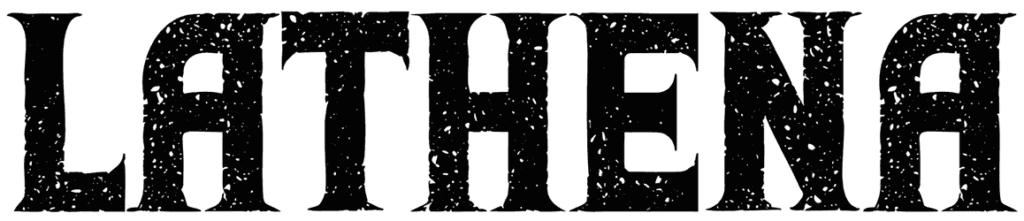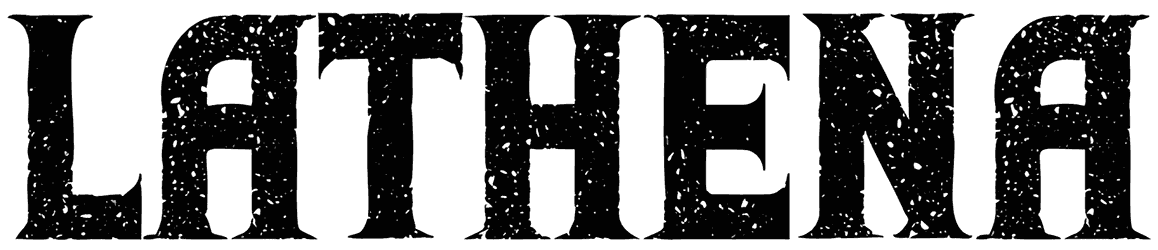
Lathena Font
Now thanks to Resource Boy, the aesthetic retro exhibitions come back with the 80s aesthetic of Lathena, catching its retro wave and speckled design by utilizing this all-caps serif font.
Let your viewers truly relive that vibrant and vintage look, to get an apex in devising nostalgic banners, posters, album covers, and social media posts. Test this gothic font, and see how your typography will get the elegant eroded details and turn up.